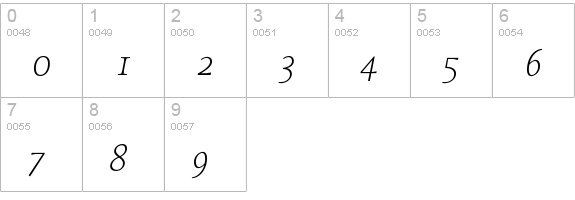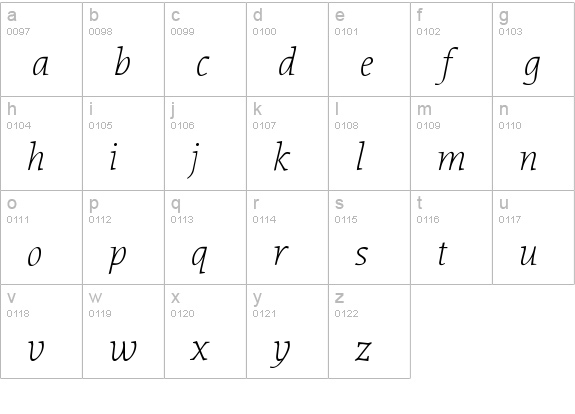
Proforma-UltraLightItalic Font Details
The Proforma-UltraLightItalic font is a beautifully crafted typeface designed with elegance and sophistication in mind. Its delicate and flowing italic style exudes a sense of modernity and grace, making it perfect for projects that require a touch of refinement. The Proforma-UltraLightItalic font is free to download at FontsMarket.com, offering designers and creatives the opportunity to access this stunning typeface without any cost. Whether you're working on a branding project, a wedding invitation, or a creative design, the Proforma-UltraLightItalic font will surely elevate your work with its unique charm and versatility. Download it today and add a touch of sophistication to your designs!